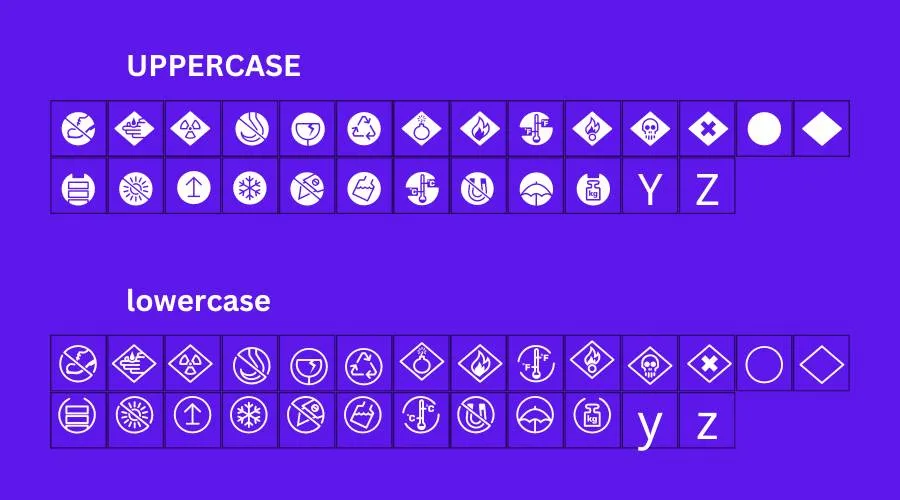
About Care Pack Font
Care Pack is a typeface designed by Johannes Erler, and released in 2020. This font is special because it was created with the intention of being an all-in-one package for creating beautiful, thoughtful designs. The collection includes two versions of the typeface FF Care Pack Standard and FF Care Pack Pro. This typeface was published by FontFont.
The Standard version includes seven carefully-crafted weights, with 400 characters each, while the Pro version contains six extra styles, with 600 characters each. Each character has been crafted to ensure readability and harmony across languages, scripts, and platforms.